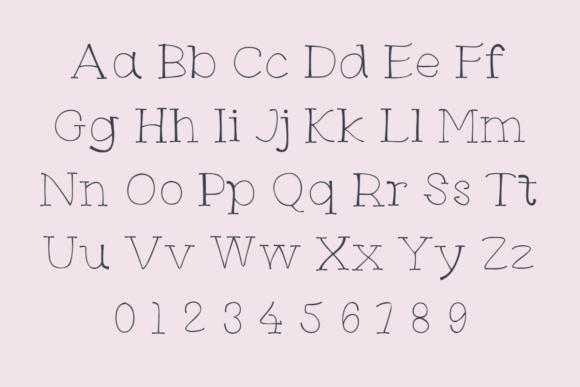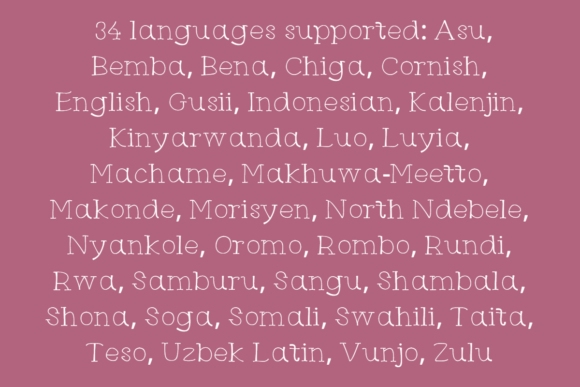
Discover the Timeless Charm of Ever After Font: A Handwritten Serif Masterpiece
In the world of typography, few fonts manage to strike a balance between classic elegance and modern flair. Ever After Font is one such exceptional typeface that seamlessly blends the timeless appeal of serif fonts with the personal touch of handwritten script. This unique fusion makes Ever After a versatile and captivating choice for designers and crafters looking to add a distinctive edge to their projects.
The Essence of Ever After Font
Ever After is a handwritten serif font that exudes both sophistication and charm. Its artistic feel is instantly recognizable, thanks to the thoughtful combination of handwritten strokes and refined serifs. This blend gives the font a unique personality that is both approachable and luxurious. Whether you’re working on branding, advertising, or print materials, Ever After offers a level of versatility that is hard to match.
Classic Yet Modern
What sets Ever After apart from other fonts is its ability to marry classic design elements with a modern twist. The serifs on the letters provide a traditional, timeless appearance that recalls classic typography from centuries past. Meanwhile, the handwritten aspects of the font inject a sense of modernity and freshness, making it highly adaptable for a wide range of design applications.
Applications of Ever After Font
The applications of Ever After Font are vast and varied. In the realm of branding, it can help create a memorable and distinctive identity that stands out in a crowded marketplace. For advertising, its unique blend of classic and modern elements can make promotional materials more engaging and effective. In print materials such as brochures, posters, and business cards, Ever After adds a touch of elegance and sophistication.
Why Choose Ever After Font?
- Unique and Artistic Feel: Ever After’s handwritten serif design offers a distinctive look that can elevate any project.
- Versatility: Its classic yet modern appearance makes it suitable for a wide range of design needs.
- Elegance and Authenticity: The font combines timeless elegance with a personal, authentic touch.
- Popularity: As a popular choice among designers, Ever After is well-recognized and appreciated for its aesthetic appeal.
Ever After Font is a remarkable typeface that brings together the best of both worlds: the classic appeal of serif fonts and the personal touch of handwritten script. Its unique and artistic feel, combined with its versatility and timeless elegance, make it an invaluable asset for designers and crafters. Whether you’re looking to create a brand identity, craft compelling advertising, or design beautiful print materials, Ever After Font is sure to leave a lasting impression.
Incorporating Ever After into your design projects is a surefire way to add a touch of sophistication and personality. Experience the transformative power of this exceptional font and discover why it’s a beloved choice among designers seeking to create memorable and impactful designs.